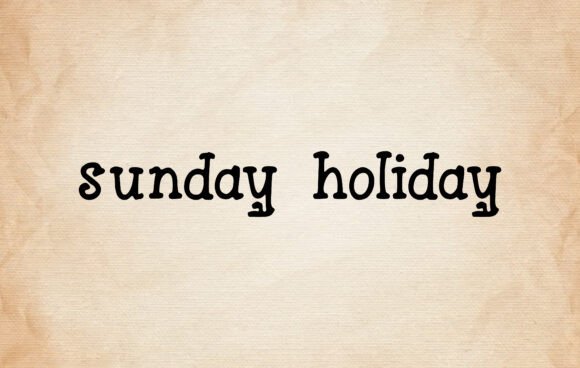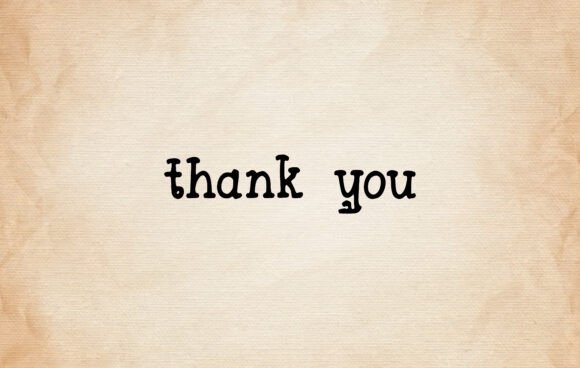
Introduction to Remain Font
Do you ever find yourself stuck on a creative project, struggling to find the perfect font to bring your vision to life? You’ve spent hours scrolling through design resources, searching for that one font that will elevate your work and make it truly unforgettable. Well, search no more. The Remain Font is here to save the day, and it’s about to become your new go-to design companion.
Expertly designed to be a true favorite, the Remain Font is legible, versatile, and looks great as a title or body text. Whether you’re working on a magazine headline, a t-shirt design, or a social media post, this high-quality font is sure to impress. And the best part? It’s available for free download, making it an absolute must-have for any designer looking to take their creative ideas to the next level.
With its transparent background and sleek design, the Remain Font is perfect for a wide range of creative projects. From branding and wedding invitations to cards and more, this font is sure to add a touch of sophistication and style to any design.
Key Features of Remain Font
- Includes a range of glyphs and characters, perfect for designing logos, icons, and graphics.
Honest Review: Remain Font
As a designer, I’m always on the lookout for high-quality fonts to enhance my creative projects. Recently, I stumbled upon the Remain Font, and I’m excited to share my thoughts on this design resource.
- ✨ Sleek and modern design that’s perfect for contemporary projects.
- ✨ Smooth and consistent typography, making it easy to read and use.
- ⚠️ Limited font styles and variations, which may not be suitable for complex projects.
- ⚠️ Some users may find the font too minimalist, lacking personality or character.
Overall, I’m impressed with the Remain Font’s clean design and versatility. While it may not be the most extensive font family, it’s a solid choice for designers looking for a simple, yet effective font for their creative projects.
Tips for Getting the Most Out of Remain Font
For optimal results, use Remain Font in a design project with a high-contrast background to showcase its high-quality design. Experiment with different font sizes and styles to create a visually appealing effect.
Remain Font is ideal for creative projects that require a clean and modern design. It is commonly used in graphic design, branding, and digital art. The font’s transparent background makes it suitable for overlaying on images or videos.